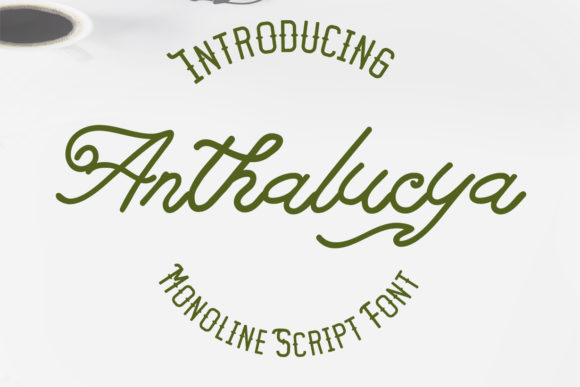
About Anthalucya Font
Anthalucya feels equally charming and elegant. This stunning handwritten font is a stylish homage to classic calligraphy. Get inspired by its authentic feel and use it to create gorgeous wedding invitations, beautiful stationary art, eye-catching social media posts, and cute greeting cards.